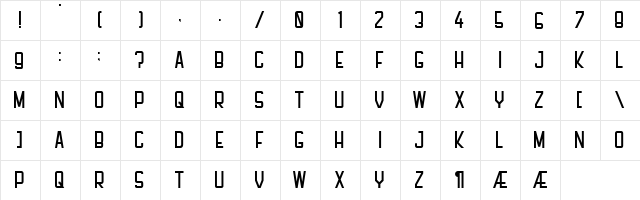
PFHALL Regular
| Foundry | Sok Konjarski |
| Designer | Sok Konjarski |
Design Context for PFHALL Typeface
PFHALL takes a measured approach to typography — its balanced proportions and neutral character make it a reliable workhorse for both digital and print work.